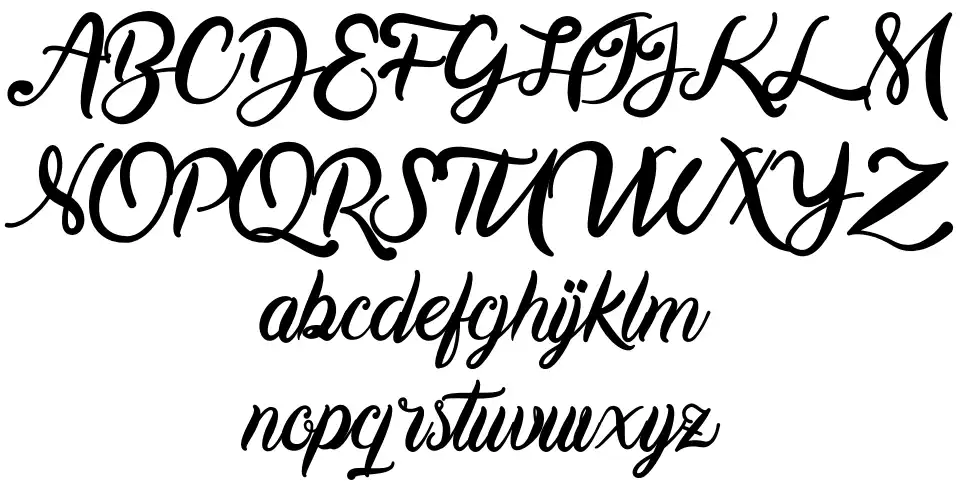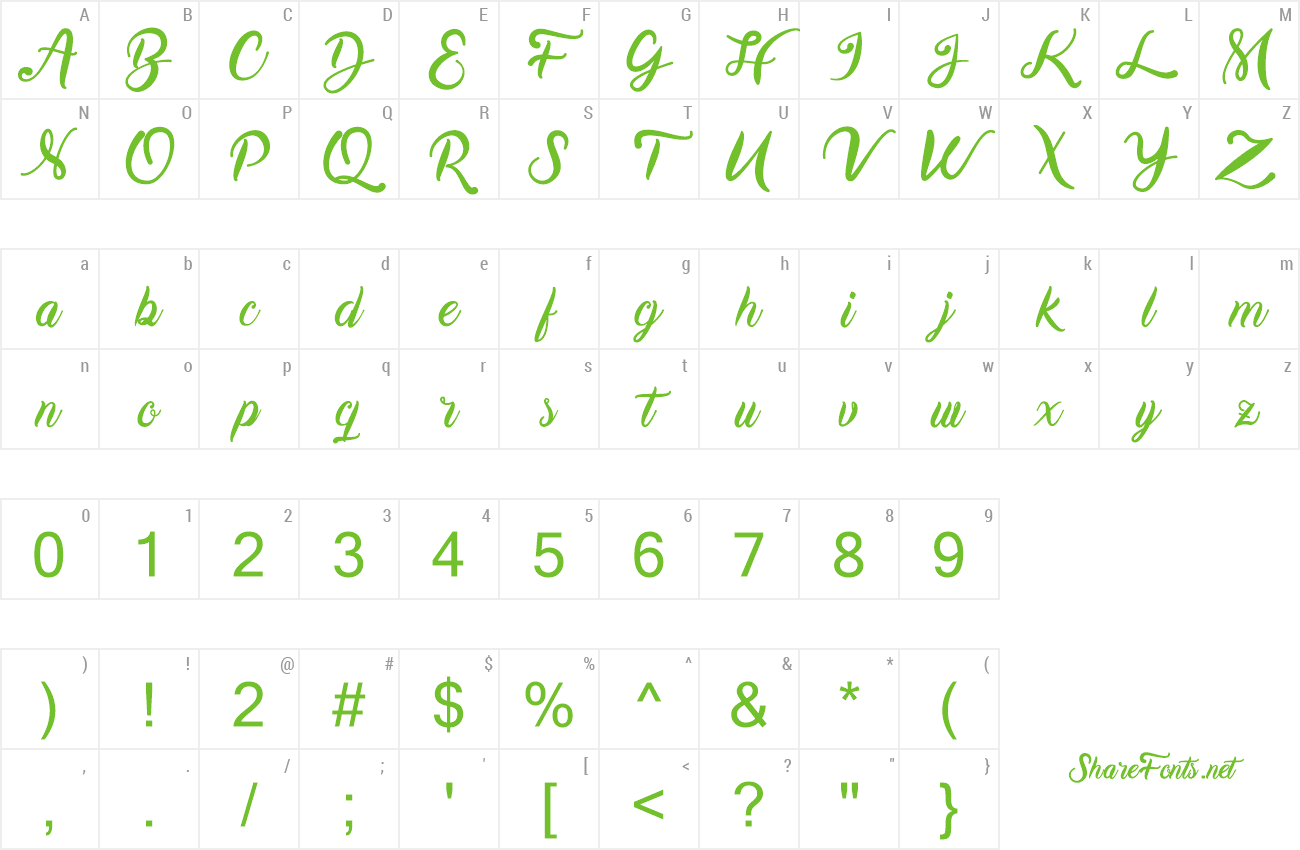
Karmila Script Font
Karmila Script Font - Web karmila script by fiqiart. Web karmila script is a decorative signature font, where you can achieve the feeling of handwritten letters. Web karmila signature font. If you are looking for a signature typeface, this would be a good choice. Karmila script is a decorative signature font, where you can achieve the feeling of. 18,733 downloads (1 yesterday) free for personal use.
Web karmila signature font. Web karmila script is a decorative signature font, where you can achieve the feeling of handwritten letters. 18,733 downloads (1 yesterday) free for personal use. Web karmila script by fiqiart. Karmila script is a decorative signature font, where you can achieve the feeling of. If you are looking for a signature typeface, this would be a good choice.
If you are looking for a signature typeface, this would be a good choice. Web karmila script by fiqiart. Karmila script is a decorative signature font, where you can achieve the feeling of. 18,733 downloads (1 yesterday) free for personal use. Web karmila script is a decorative signature font, where you can achieve the feeling of handwritten letters. Web karmila signature font.
Karmila Script font by Fiqi Art FontRiver
If you are looking for a signature typeface, this would be a good choice. Web karmila script is a decorative signature font, where you can achieve the feeling of handwritten letters. 18,733 downloads (1 yesterday) free for personal use. Karmila script is a decorative signature font, where you can achieve the feeling of. Web karmila signature font.
Karmila Handwritten Script Font Download Fonts
Web karmila script by fiqiart. If you are looking for a signature typeface, this would be a good choice. Web karmila script is a decorative signature font, where you can achieve the feeling of handwritten letters. Karmila script is a decorative signature font, where you can achieve the feeling of. Web karmila signature font.
Karmila Script Font
If you are looking for a signature typeface, this would be a good choice. 18,733 downloads (1 yesterday) free for personal use. Karmila script is a decorative signature font, where you can achieve the feeling of. Web karmila script is a decorative signature font, where you can achieve the feeling of handwritten letters. Web karmila signature font.
Web karmila script by fiqiart. Web karmila signature font. 18,733 downloads (1 yesterday) free for personal use. If you are looking for a signature typeface, this would be a good choice. Karmila script is a decorative signature font, where you can achieve the feeling of.
Web karmila signature font. Web karmila script by fiqiart. If you are looking for a signature typeface, this would be a good choice. Karmila script is a decorative signature font, where you can achieve the feeling of. 18,733 downloads (1 yesterday) free for personal use.
18,733 downloads (1 yesterday) free for personal use. Web karmila script by fiqiart. If you are looking for a signature typeface, this would be a good choice. Web karmila signature font. Karmila script is a decorative signature font, where you can achieve the feeling of.
18,733 downloads (1 yesterday) free for personal use. Web karmila signature font. If you are looking for a signature typeface, this would be a good choice. Web karmila script by fiqiart. Karmila script is a decorative signature font, where you can achieve the feeling of.
Karmila Script Font download free
Web karmila signature font. Web karmila script by fiqiart. If you are looking for a signature typeface, this would be a good choice. Web karmila script is a decorative signature font, where you can achieve the feeling of handwritten letters. Karmila script is a decorative signature font, where you can achieve the feeling of.
Karmila Script font
Karmila script is a decorative signature font, where you can achieve the feeling of. Web karmila script is a decorative signature font, where you can achieve the feeling of handwritten letters. Web karmila signature font. 18,733 downloads (1 yesterday) free for personal use. Web karmila script by fiqiart.
Karmila Handwritten Script Font All Free Fonts
18,733 downloads (1 yesterday) free for personal use. Karmila script is a decorative signature font, where you can achieve the feeling of. Web karmila signature font. Web karmila script by fiqiart. If you are looking for a signature typeface, this would be a good choice.
Web Karmila Script Is A Decorative Signature Font, Where You Can Achieve The Feeling Of Handwritten Letters.
If you are looking for a signature typeface, this would be a good choice. Karmila script is a decorative signature font, where you can achieve the feeling of. 18,733 downloads (1 yesterday) free for personal use. Web karmila script by fiqiart.